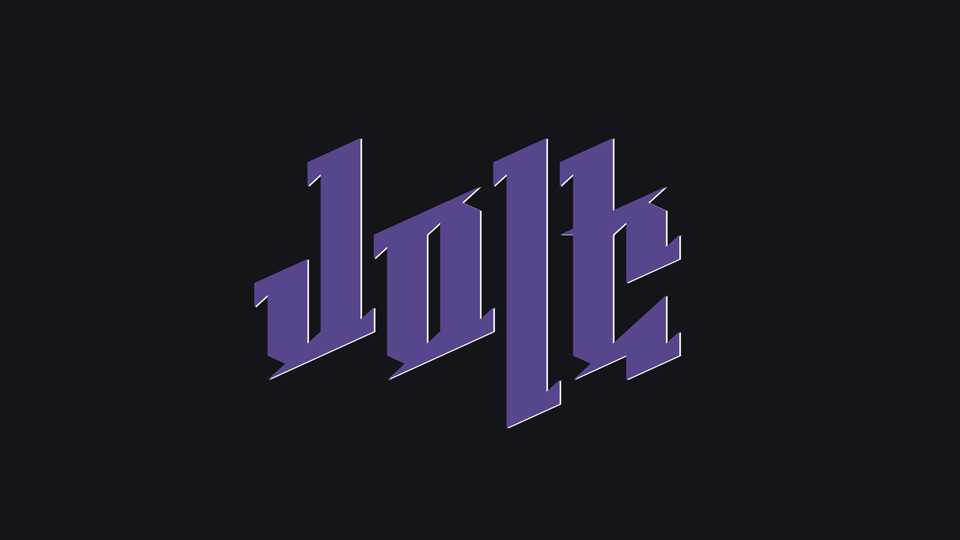
Download Jolt font, a display typeface that blends the historic beauty of blackletter typography with a striking lightning effect. Jolt font is perfect to infuse your text with a sense of electrifying impact and an artistic touch.